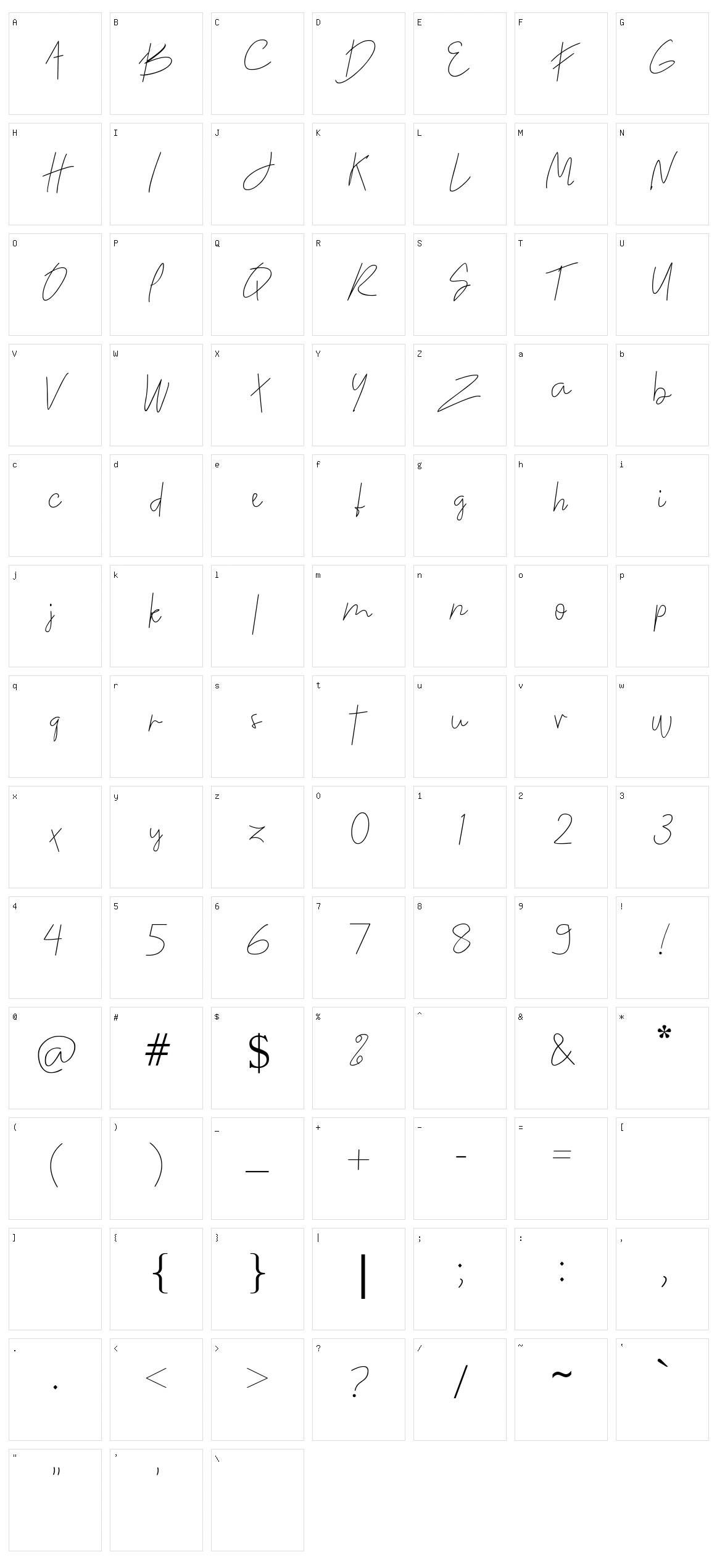
The free font The Night Began is carefully designed by lyanatha, showcasing a thoughtful balance of creativity and usability and falls under the Script font style. When you download the ZIP file, it contains only 28.85 KB of font files, making it lightweight and quick to download. Please review the license details below to understand permitted usage and distribution rights. If license information is not available, we recommend using this font for personal projects only or contacting the author directly for commercial usage permissions.